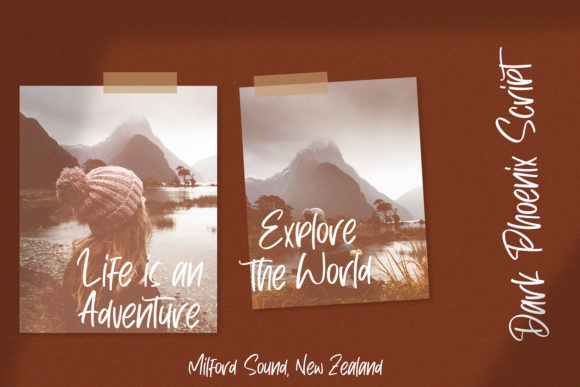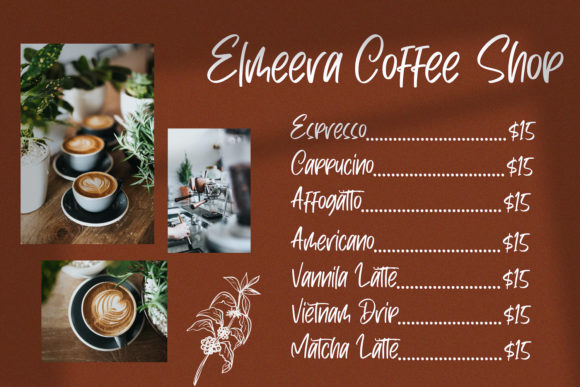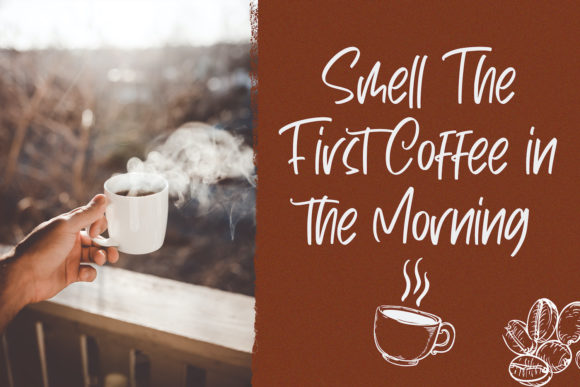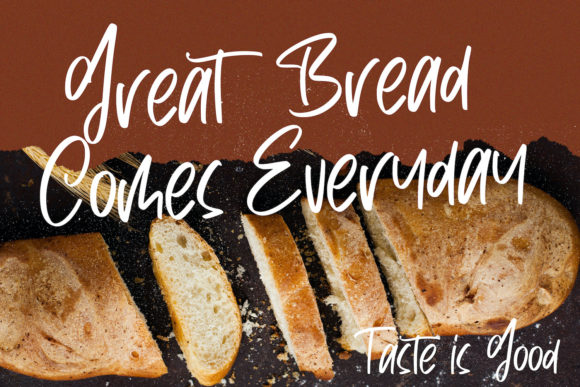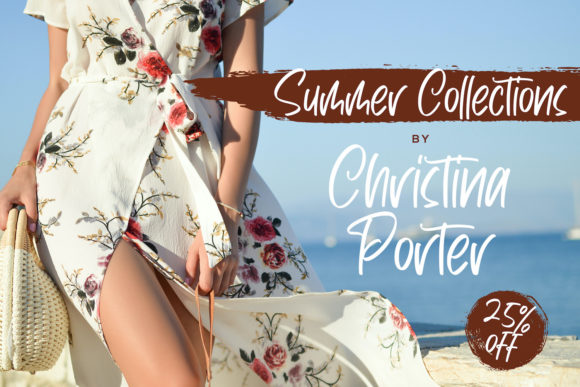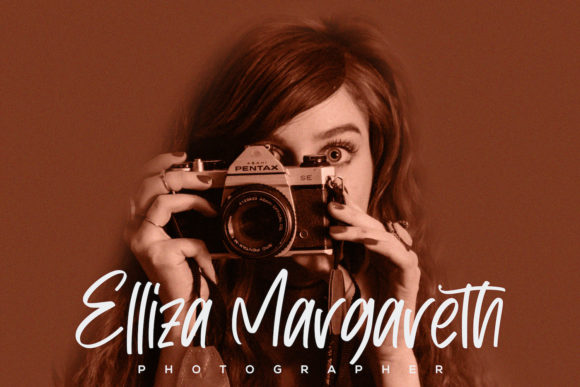
The Magic of Dark Phoenix Font: A Designer’s Delight
I’ll never forget the time I was working on a project for a luxury brand, and I just couldn’t find the right font to match their elegant vibe. I scrolled through page after page of Google Fonts, but nothing seemed quite right. That was until I stumbled upon Dark Phoenix Font. ✨ It’s a flowing handwritten font that exudes an elegant touch, making it perfect for a wide range of projects. In this article, I’ll share my love for Dark Phoenix Font, its features, and how to make the most of it in your designs.
An Honest Review of Dark Phoenix Font
- ✅ Elegant and sophisticated feel
- ✨ Incredibly distinct and timeless style
- 🔥 Perfect for creating spectacular designs
- 💫 Supports OpenType features for advanced typography
While Dark Phoenix Font is an amazing addition to any design project, there are a few things to keep in mind: 🤔
- ⚠️ Limited availability of stylistic alternates
- ⚠️ May not be suitable for very small font sizes
A Practical Guide to Using Dark Phoenix Font
The Backstory of Dark Phoenix Font
Dark Phoenix Font was created with the intention of bringing a touch of elegance and sophistication to design projects. Its creator wanted to craft a font that would be both timeless and versatile, suitable for a wide range of applications. The result is a font that’s both beautiful and functional.
Q: What type of projects is Dark Phoenix Font best suited for?
A: Dark Phoenix Font is perfect for luxury brands, high-end products, and creative projects that require an elegant touch.
Q: Does Dark Phoenix Font support OpenType features?
A: Yes, Dark Phoenix Font supports OpenType features, including ligatures and stylistic alternates.